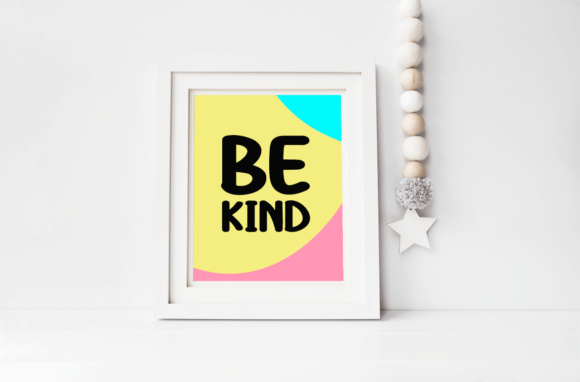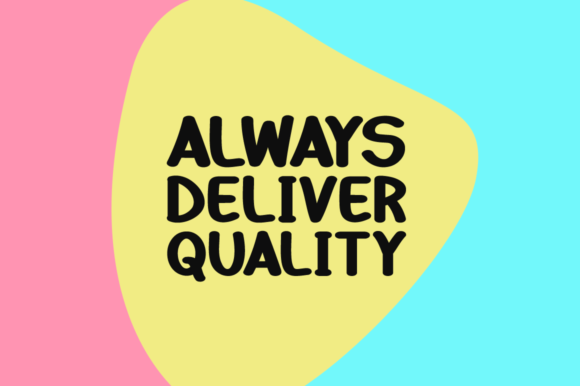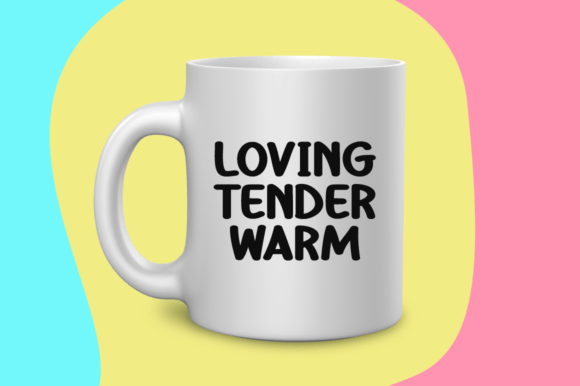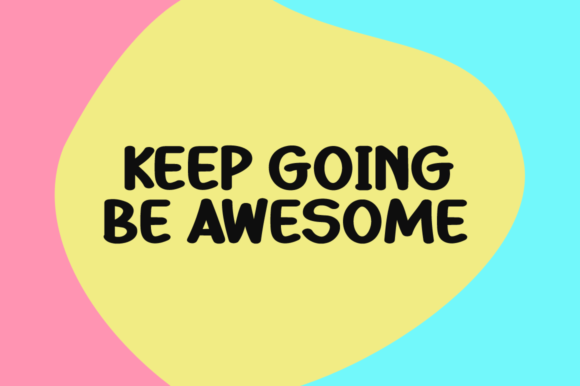
Introduction to Pleasant Feelings Font
You’re staring at a blank page, a blank canvas, or a blank screen, and suddenly, the creative juices start flowing. The ideas begin to swirl, and you know exactly what you want to create – a beautiful, eye-catching design that showcases your unique style. This is the moment when the right font can make all the difference. And, for designers looking for a simple yet striking display font, the Pleasant Feelings Font is an excellent choice.
This free download is a game-changer for any creative project, offering a high-quality, versatile design resource that’s perfect for titles, letterheads, and stationery. With its transparent background and trendy feel, the Pleasant Feelings Font is an ideal addition to any design collection.
For designers, having access to a wide range of high-quality fonts is invaluable. It allows them to experiment, innovate, and push the boundaries of their creative vision. And, with the Pleasant Feelings Font, the possibilities are endless.
- Features a unique and modern aesthetic, perfect for adding a touch of elegance to any design
Honest Review: Pleasant Feelings Font
I recently stumbled upon the Pleasant Feelings Font and I must say, it’s been a game-changer for my design projects. The high quality of this font is evident from the get-go, making it a fantastic addition to any creative project.
- ✨ The font is incredibly versatile, suitable for a wide range of design applications.
- ⚠️ The font may not be suitable for use in situations where a more formal or traditional feel is required.
- ⚠️ Some users may find the font’s design to be too playful or whimsical.
Overall, I’m thoroughly impressed with the Pleasant Feelings Font and would highly recommend it to designers looking for a high-quality, free design resource for their creative projects.
The Pleasant Feelings Font is a high-quality design resource ideal for creative projects that require a unique and inviting aesthetic. With its clean and modern design, this font is perfect for creating engaging visual content.
To get the most out of the Pleasant Feelings Font, use it with a transparent background to create a clean and modern look. Experiment with different font sizes and styles to add visual interest to your designs.
The Pleasant Feelings Font is ideal for:
- Creating engaging social media graphics
- Designing invitations and event materials
- Developing branding materials for small businesses